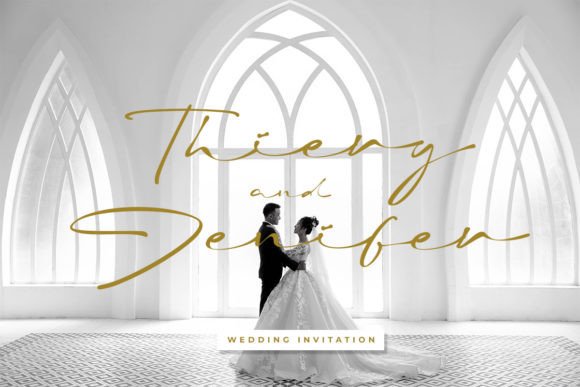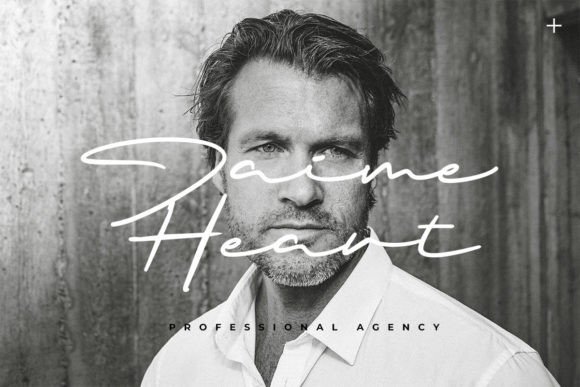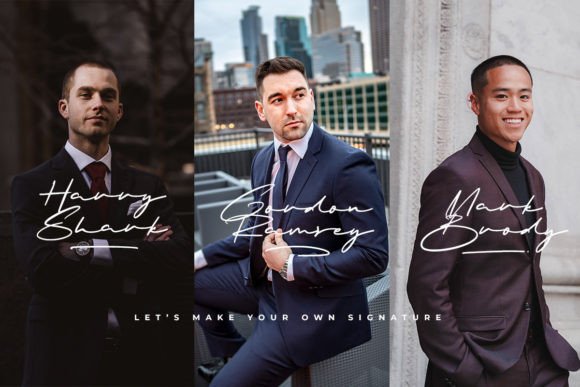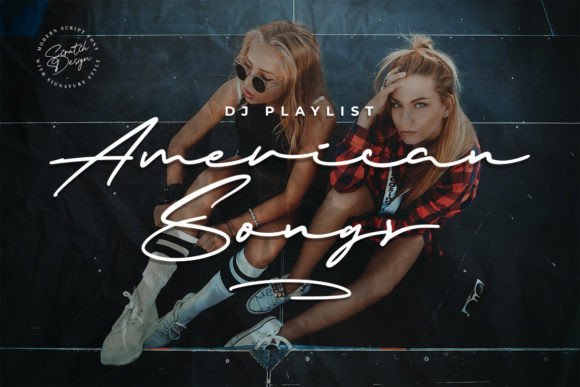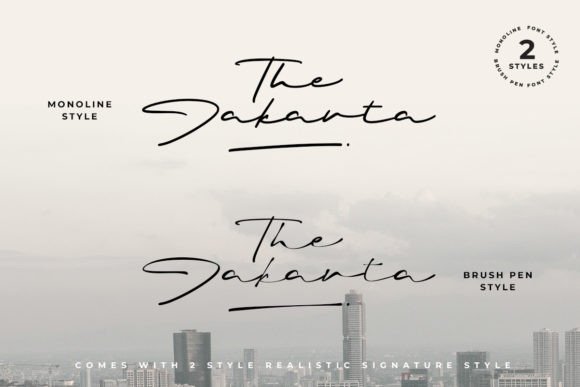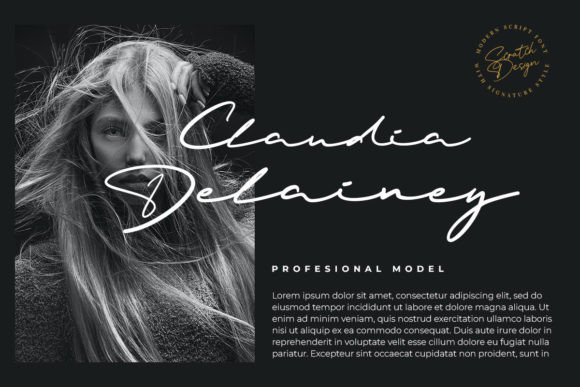
Briana Font: Elevate Your Designs with a Realistic Handwritten Touch
Are you tired of using generic fonts that lack personality in your designs? Look no further than Briana Font, a realistic signature font that adds a touch of elegance and sophistication to any project. In this article, we’ll dive into the features and benefits of Briana Font, and explore how it can elevate your designs, whether you’re a designer, crafter, or DIY enthusiast.
What is Briana Font?
Briana Font is a versatile and realistic signature font that comes in two distinct styles: Monoline and Brush pen. This dual-style font offers flexibility and creativity, allowing you to choose the perfect look for your project. Whether you’re aiming for a modern, sleek design or a more organic, hand-crafted feel, Briana Font has got you covered.
Key Features of Briana Font
- Realistic Handwritten Style: Briana Font boasts a genuine handwritten appearance, making it perfect for designs that require a personal touch.
- Dual-Style Font: The font comes in two styles: Monoline and Brush pen, offering versatility for various design applications.
- High-Quality Design: The font is meticulously crafted to ensure high-quality output, suitable for both digital and print applications.
Briana Font is an excellent choice for a wide range of design projects, including:
- Logos & Branding: Create a unique and memorable brand identity with Briana Font’s distinctive handwritten style.
- Invitations: Add a touch of elegance to your invitations, whether it’s for a wedding, birthday, or any other special occasion.
- Quote Text: Make your quotes and sayings stand out with Briana Font’s beautiful, cursive script.
- Stationery: Elevate your stationery designs with a personal touch, making them perfect for personal or business use.
- Wedding Invitations: Briana Font’s elegant style makes it an ideal choice for wedding invitations and other wedding-related designs.
- Social Media Posts: Add a creative and artistic touch to your social media posts, making them stand out in a crowded feed.
- Advertisements: Use Briana Font to create eye-catching advertisements that capture the attention of your target audience.
- Product Packaging: Add a personal touch to your product packaging, making it more appealing to customers.
- Labels: Create beautiful and distinctive labels for your products or gifts.
Why Choose Briana Font?
With so many fonts available, why choose Briana Font? Here are a few compelling reasons:
- Unique and Memorable: Briana Font’s realistic handwritten style makes it a unique and memorable addition to any design.
- Versatile: The font’s dual-style design and wide range of applications make it an excellent investment for designers and crafters.
- High-Quality Design: The font is meticulously crafted to ensure high-quality output, suitable for both digital and print applications.
| Font Name | Briana Font |
| Author | Scratch Design |
In conclusion, Briana Font is a versatile and realistic signature font that can elevate your designs and add a touch of elegance and sophistication. With its dual-style design, ease of use, and wide range of applications, Briana Font is an excellent choice for designers, crafters, and DIY enthusiasts. Whether you’re looking to create a unique brand identity, design beautiful invitations, or add a personal touch to your product packaging, Briana Font is the perfect choice.